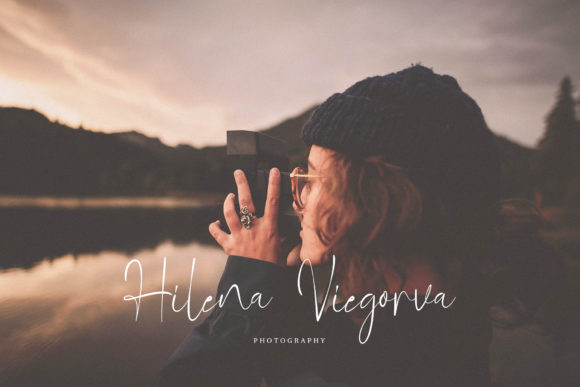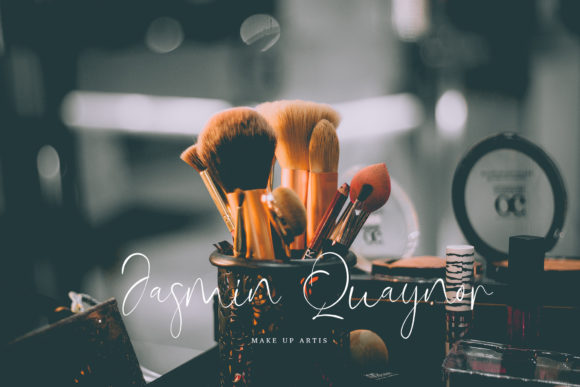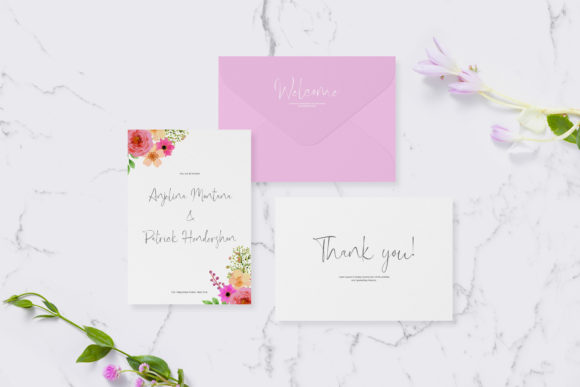
Introduction to Marylinda Font
Marylinda is a stylish signature font with an elegant feel.
Get inspired by its authentic feel and use it to create gorgeous wedding invitations, beautiful stationary art, eye-catching social media posts, and cute greeting cards .
Marylinda Font offers exceptional quality and versatility, making it a valuable addition to your design toolkit. Whether you’re creating for personal projects or commercial use, Marylinda Font delivers professional results.